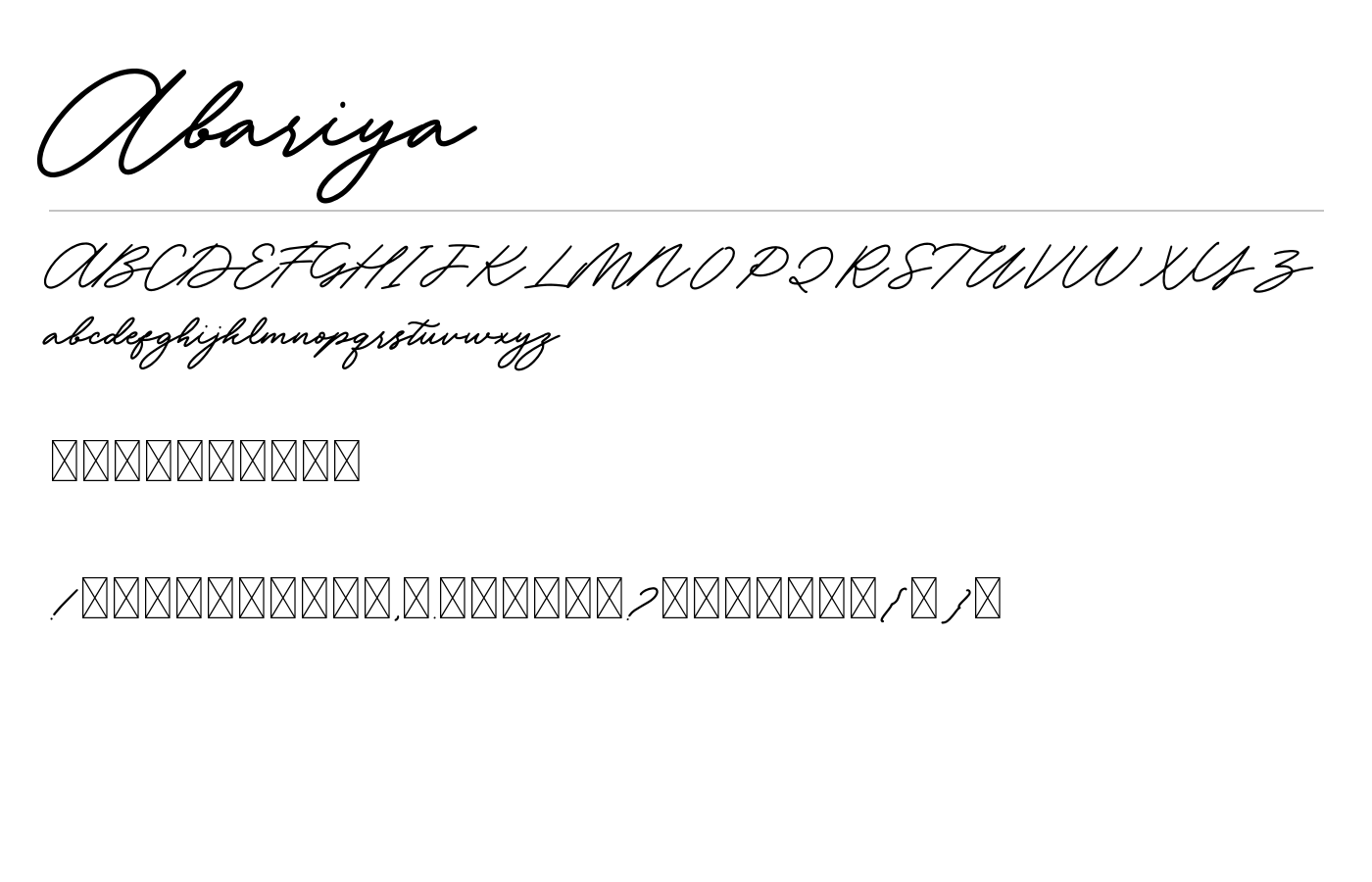
Abariya is a graceful script font with a smooth, handwritten style that features slender, fluid strokes and an elegant, natural flow. Its light weight and slightly condensed letterforms give it a delicate, airy feel perfect for adding a personal, sophisticated touch to invitations, branding, and stylish editorial design. This font shines best in projects that seek to convey warmth, refinement, and a touch of casual elegance.
Abariya Font
About Abariya Font
| Font family | Abariya Font |
| Designer | Ana Natalia |